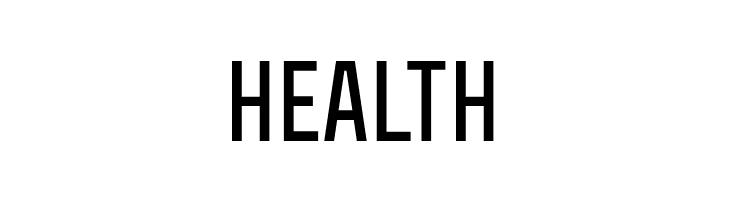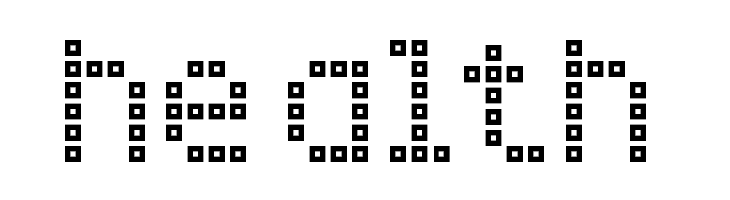
A bold, geometric font with a modern and industrial aesthetic.
A bold, modern font with strong geometric shapes and clean lines.
A bold, geometric sans-serif font with a unique inline design.
A pixelated, LED-style font with a retro digital aesthetic.
A bold, Gothic-inspired font with sharp, angular edges and intricate detailing.
A bold, blackletter-style font with intricate, gothic details.
A bold, italic font with a modern, angular design.
A casual, handwritten font with rounded, smooth letterforms and a friendly appearance.